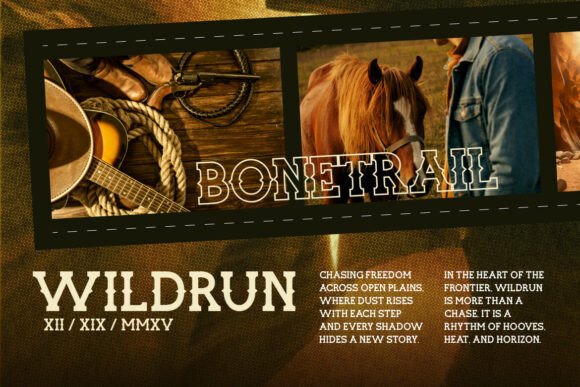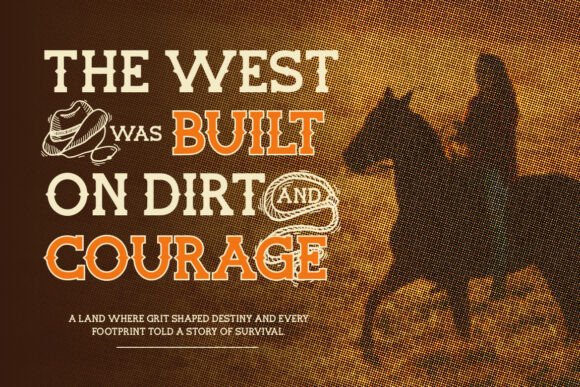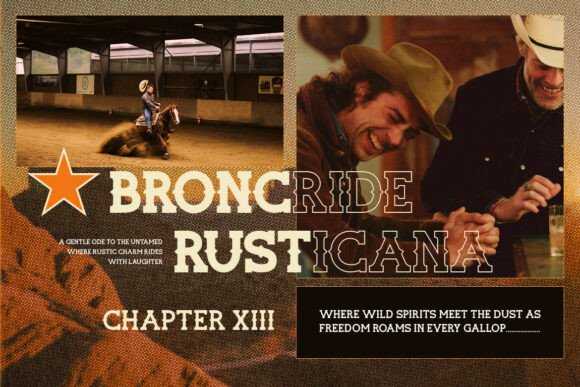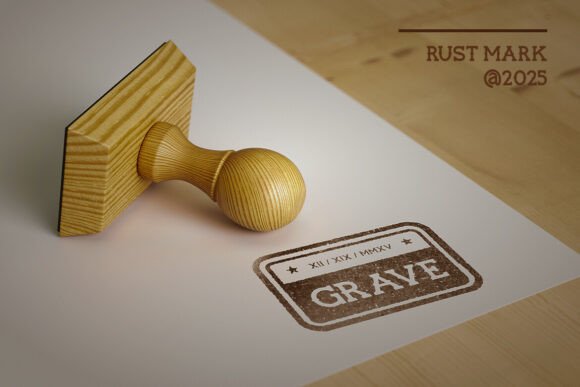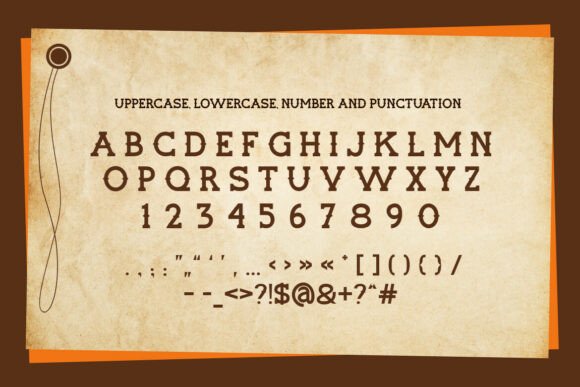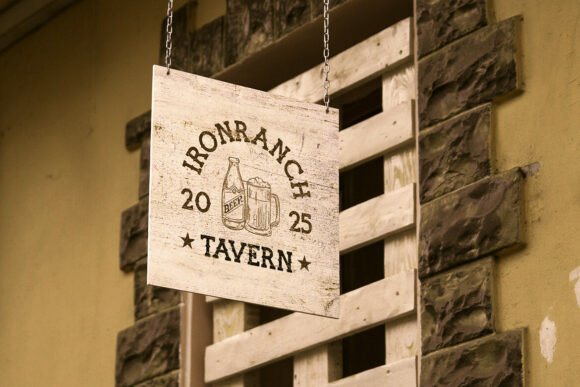
Gravebone Font: Unleash the Wild West in Your Designs
Are you looking for a font that embodies the spirit of the Wild West? Do you want to add a touch of cowboy flair to your designs? Look no further than Gravebone, a bold western-style serif font that’s perfect for projects that need a rugged, vintage-inspired look. In this article, we’ll explore the features and benefits of Gravebone, and show you how to make the most of this amazing font.
What is Gravebone Font?
Gravebone is a bold, western-style serif font that’s designed to evoke the spirit of the Wild West. With its rugged, vintage-inspired letterforms, this font is perfect for projects that need a touch of cowboy flair. Whether you’re creating a poster, logo, or book cover, Gravebone brings authentic character and bold impact to your designs.
Key Features of Gravebone Font
- Bold and rugged design: Gravebone features bold, rugged letterforms that are perfect for making a statement.
- Western-style serif: The font’s western-style serif design gives it a unique, vintage look that’s reminiscent of the Wild West.
- Uppercase, lowercase, numerals, and punctuation: Gravebone includes a full range of characters, giving you full versatility for any design need.
- Rustic textures and classic typography elements: The font’s rustic textures and classic typography elements evoke the spirit of the Wild West, making it perfect for themed events and designs.
Uses for Gravebone Font
Gravebone is a versatile font that can be used for a wide range of design projects, including:
- Posters and flyers: Create eye-catching posters and flyers for themed events, such as cowboy-themed parties or Wild West-inspired exhibitions.
- Logos and branding: Use Gravebone to create bold, memorable logos and branding materials for your business or organization.
- Book covers and titles: Add a touch of cowboy flair to your book covers and titles with Gravebone’s rugged, vintage-inspired design.
- Themed events and parties: Create invitations, banners, and other materials for themed events and parties with Gravebone’s authentic Wild West look.
Tips for Using Gravebone Font
Here are a few tips for getting the most out of Gravebone:
- Use it boldly: Gravebone is a bold font, so don’t be afraid to use it boldly in your designs.
- Experiment with colors: Try pairing Gravebone with different colors to create a unique look that suits your design.
- Mix it with other fonts: Combine Gravebone with other fonts to create a interesting contrast and add depth to your design.
Gravebone is a bold, western-style serif font that’s perfect for designers and crafters who want to add a touch of cowboy flair to their designs. With its rugged, vintage-inspired letterforms and full range of characters, Gravebone is ideal for a wide range of design projects, from posters and logos to book covers and themed events. So why wait? Download Gravebone today and unleash the Wild West in your designs!
- What type of font is Gravebone?
- Gravebone is a bold western-style serif font.
- What is Gravebone font used for?
- Gravebone font is perfect for projects that need a touch of cowboy flair, such as posters, logos, book covers, and themed events.
- Does Gravebone font include uppercase and lowercase letters?
- Yes, Gravebone font includes uppercase, lowercase, numerals, and punctuation.